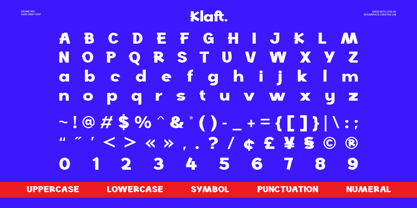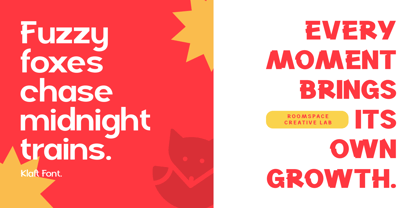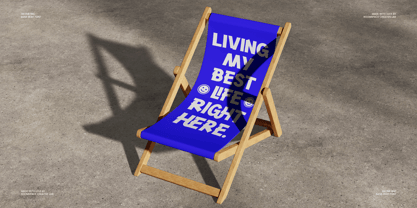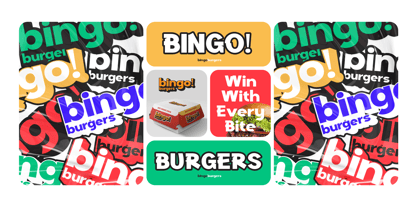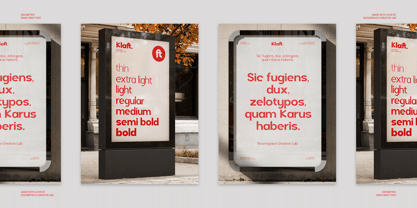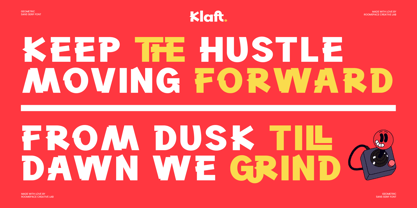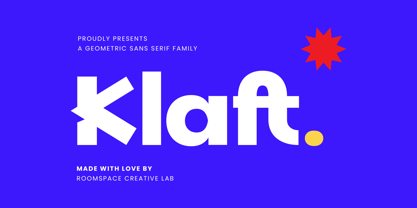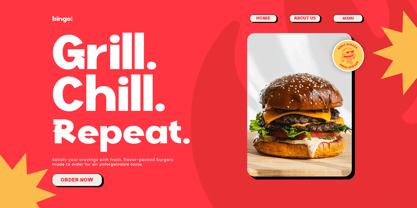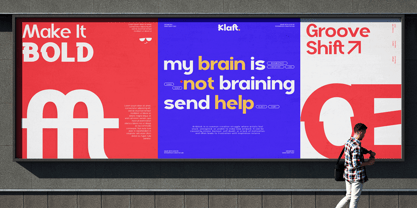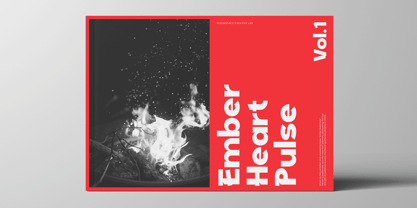
Klaft
The Klaft Font Family was designed by Bakhrudin Ja'far and published by Jafar07. Klaft contains 7 styles and family package options. More about this family
Klaft is a modern bold sans serif font built on strong geometric shapes and clean visual balance. It brings a fresh, confident personality to any design blending simplicity with style. Whether for digital or print use, Klaft embodies the perfect mix of professionalism and modernity, making your message stand out with clarity and impact. Every curve and edge of Klaft is carefully crafted to ensure smooth legibility and consistent kerning. Its bold structure gives strength to headlines, while the subtle geometric touch adds warmth and approachability. The font includes uppercase, lowercase, punctuation, numerals, and multilingual support giving you flexibility for a wide range of creative applications. Perfect for logos, branding, packaging, websites, editorial layouts, and social media content, Klaft adapts effortlessly to any modern visual identity. If you're looking for a versatile, bold sans serif that feels fresh yet timeless, Klaft Font is the right choice. Try it now and give your next project a strong, modern edge.